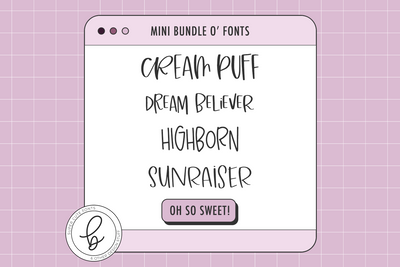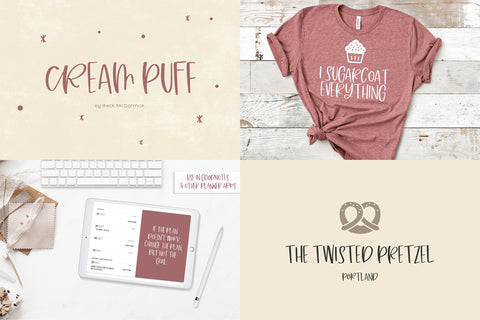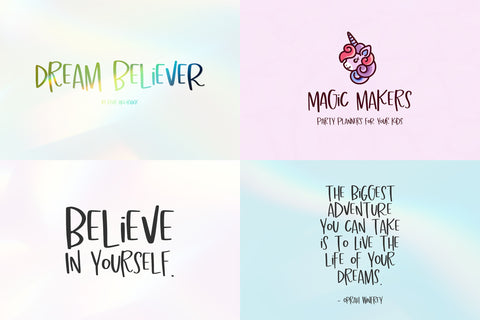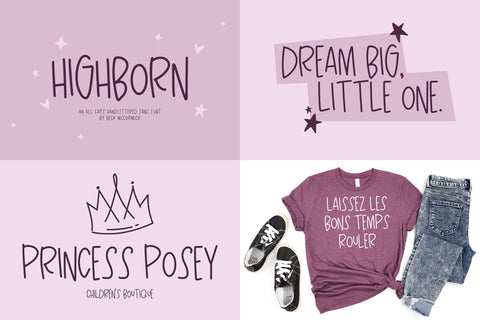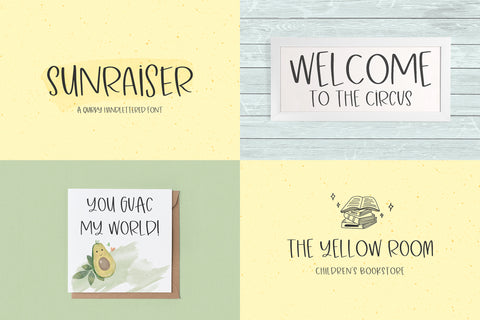
Whimsical All Caps Font Mini Bundle
Bring your creative projects to life with this mini bundle of fonts!
Whether you're designing a brand, creating products to sell, crafting personalized gifts, or making classroom resources, these fonts make it easy to create polished, professional-looking designs with personality and style.
Popular Uses:
• Logos and brand identities
• Product packaging and product labels
• Invitations and event stationery
• Greeting cards and printable products
• Social media graphics and marketing materials
• T-shirts, tote bags, and apparel designs
• Stickers, decals, and sublimation projects
• Cricut or Silhouette cutting machine projects
• Glowforge laser-cut creations
• Signs, home décor, and handmade gifts
• Bulletin boards, worksheets, and classroom resources
• Teacher-created educational materials
This collection works beautifully across both digital and physical projects. Whether you're a graphic designer, business owner, crafter, teacher, or creative entrepreneur, these fonts are designed to help you create eye-catching designs for countless applications.
Perfect for graphic designers, crafters, makers, business owners, teachers, and creative professionals looking to add unique typography to their projects.